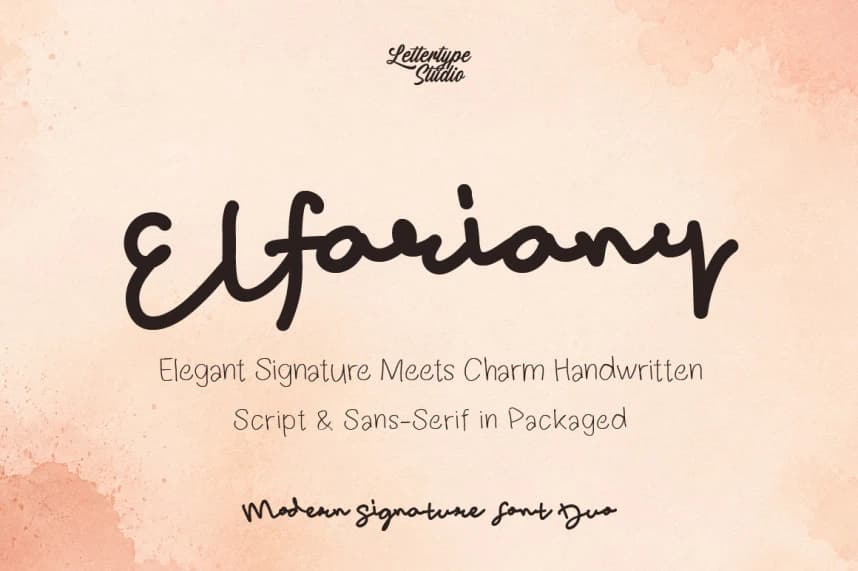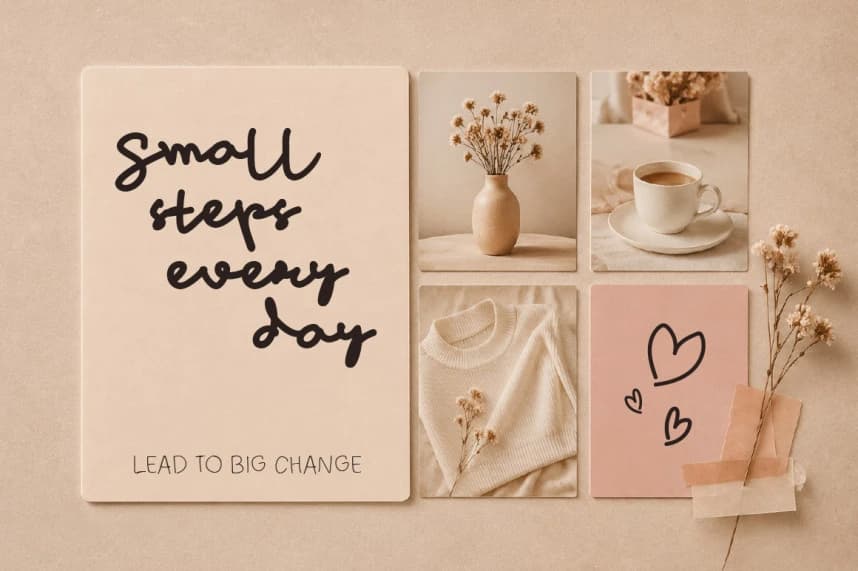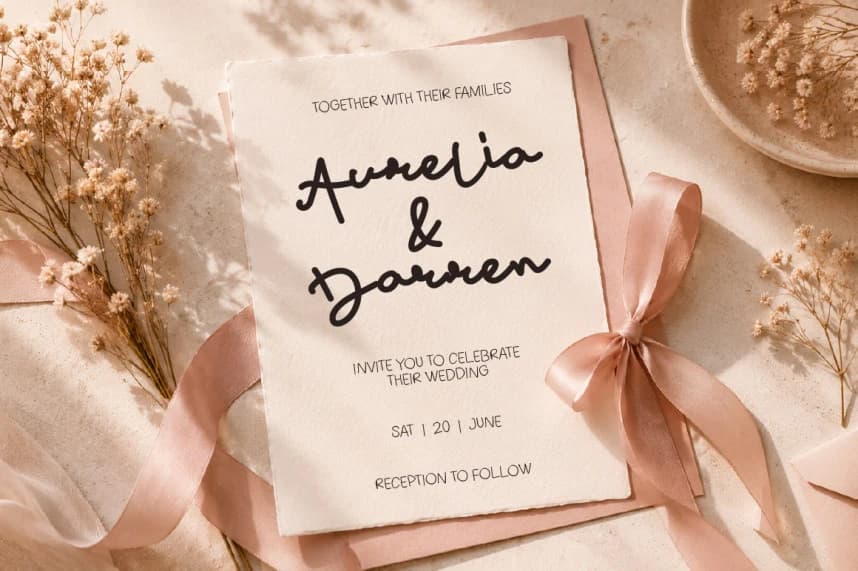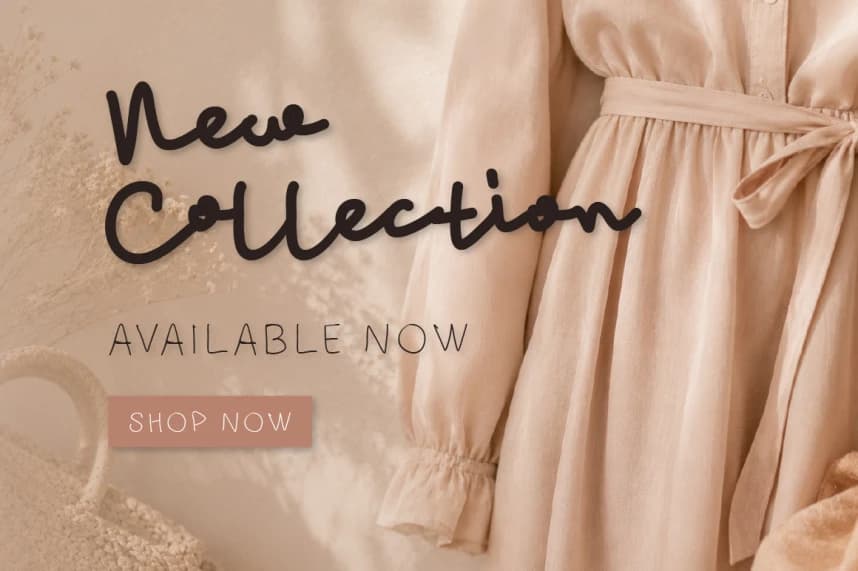
Elfariany Font Duo
Elfariany Duo is a modern handwritten font duo featuring an expressive signature script paired with a clean monoline handwritten sans. Designed to create warm, stylish, and personal branding visuals, this duo delivers the perfect balance between elegance and casual authenticity.
Elfariany Font Duo